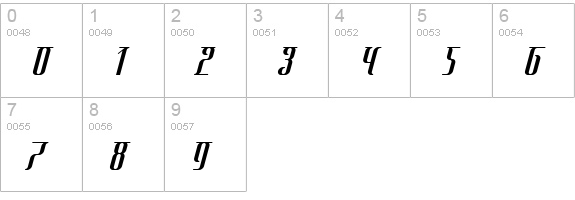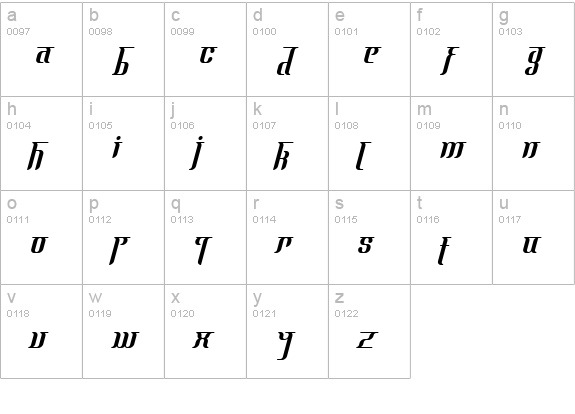
Mata Hari Exotique Italic is a distinctive, italic variant in the Mata typeface family \xE2\x80\x94 well suited to design and typography projects.
Introducing Mata Hari Exotique Italic, a truly captivating and alluring font that effortlessly transports you to a world of exotic elegance and mysterious charm. With its fluid and graceful letterforms, this font is a true feast for the eyes, capturing the essence of Mata Hari herself - a legendary seductress and femme fatale. Designed with meticulous attention to detail, Mata Hari Exotique Italic embodies the perfect balance between sophistication and playfulness. Each letter is meticulously crafted, showcasing delicate curves and intricate flourishes that add a touch of drama and excitement to any design project. Whether you're creating a striking logo, designing an eye-catching poster, or crafting a mesmerizing invitation, Mata Hari Exotique Italic will effortlessly add a touch of exoticism and allure to your work. Its versatility allows it to shine in a variety of contexts, from high-end fashion campaigns to luxurious branding ventures. And the best part? Mata Hari Exotique Italic is freely available to download at FontsMarket.com. This means that you can bring a touch of Mata Hari's enchantment to your designs without any cost or limitations. So why wait? Unleash your creativity and let Mata Hari Exotique Italic transport you to a world of elegance and intrigue. Download it today and indulge in the magic of this captivating font.